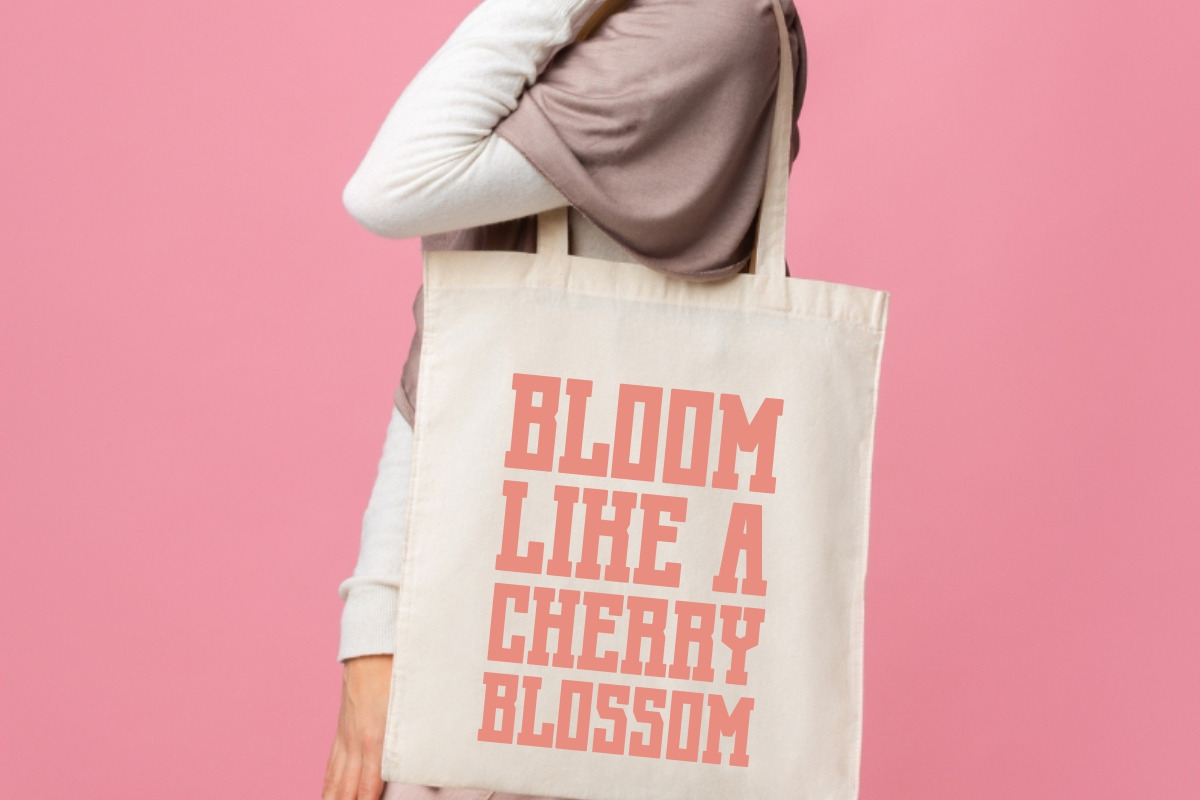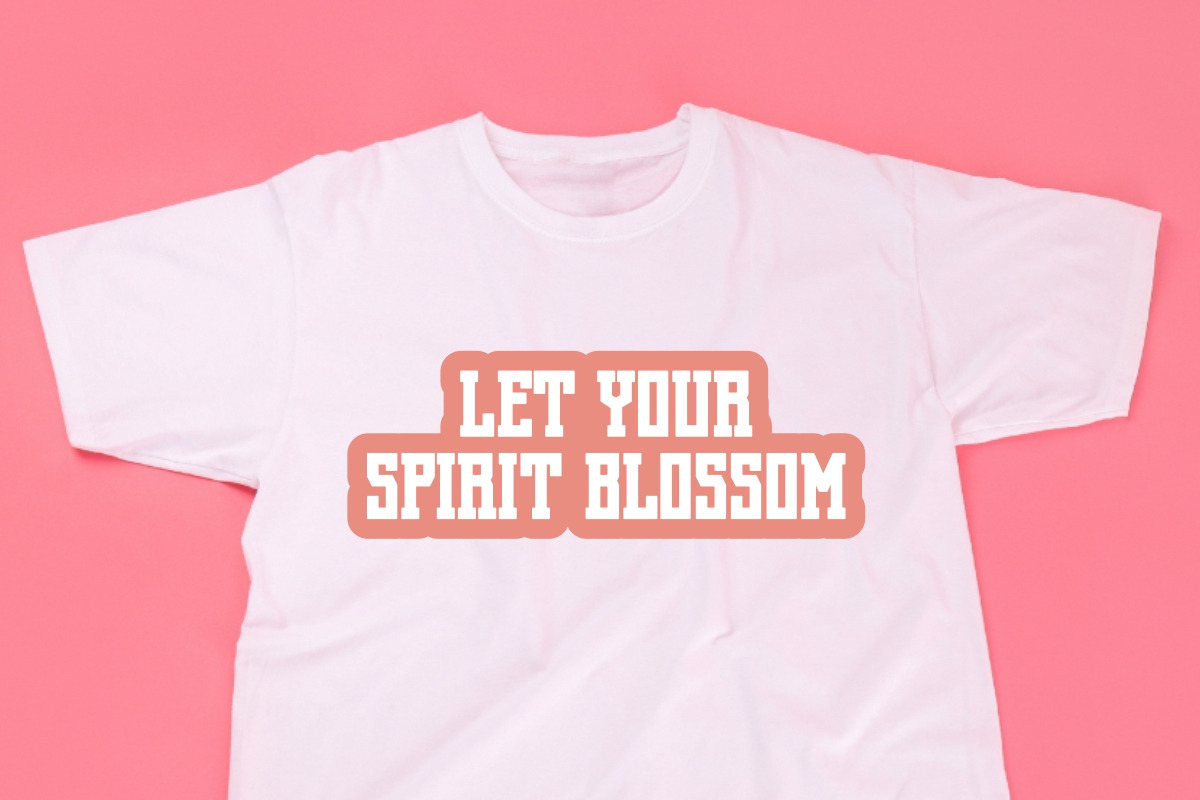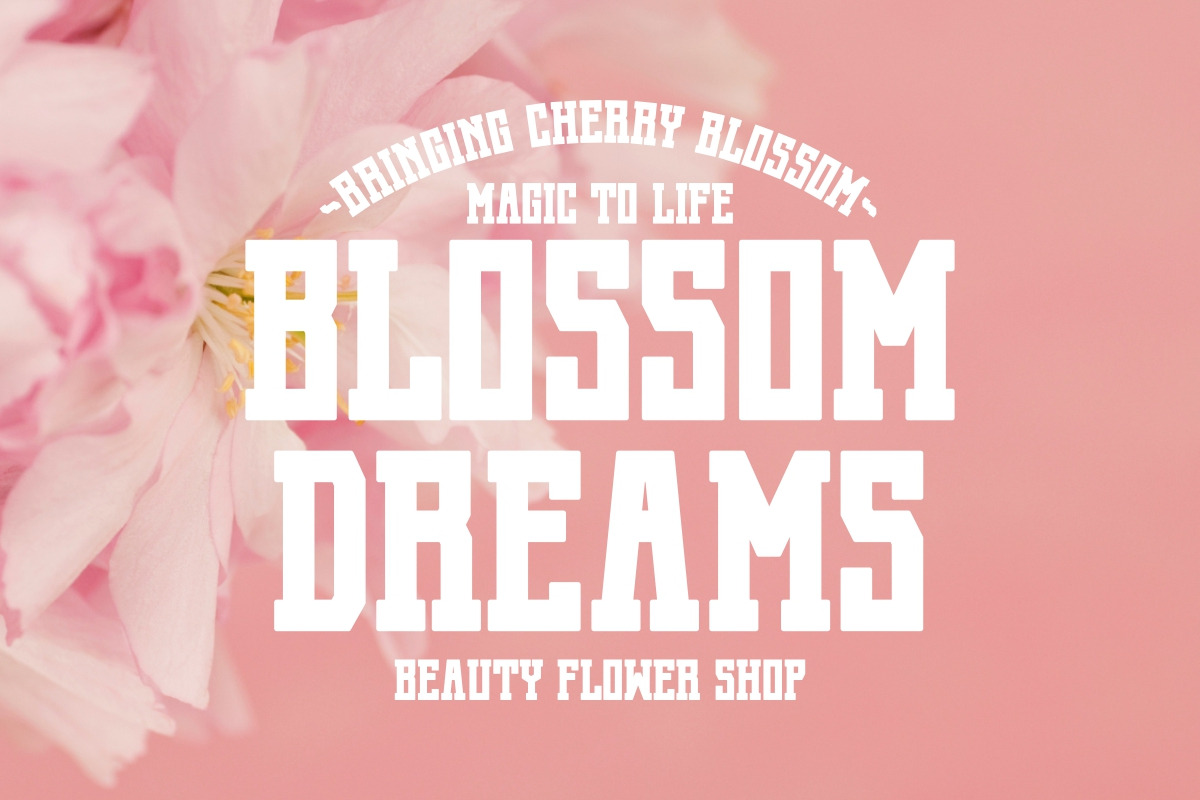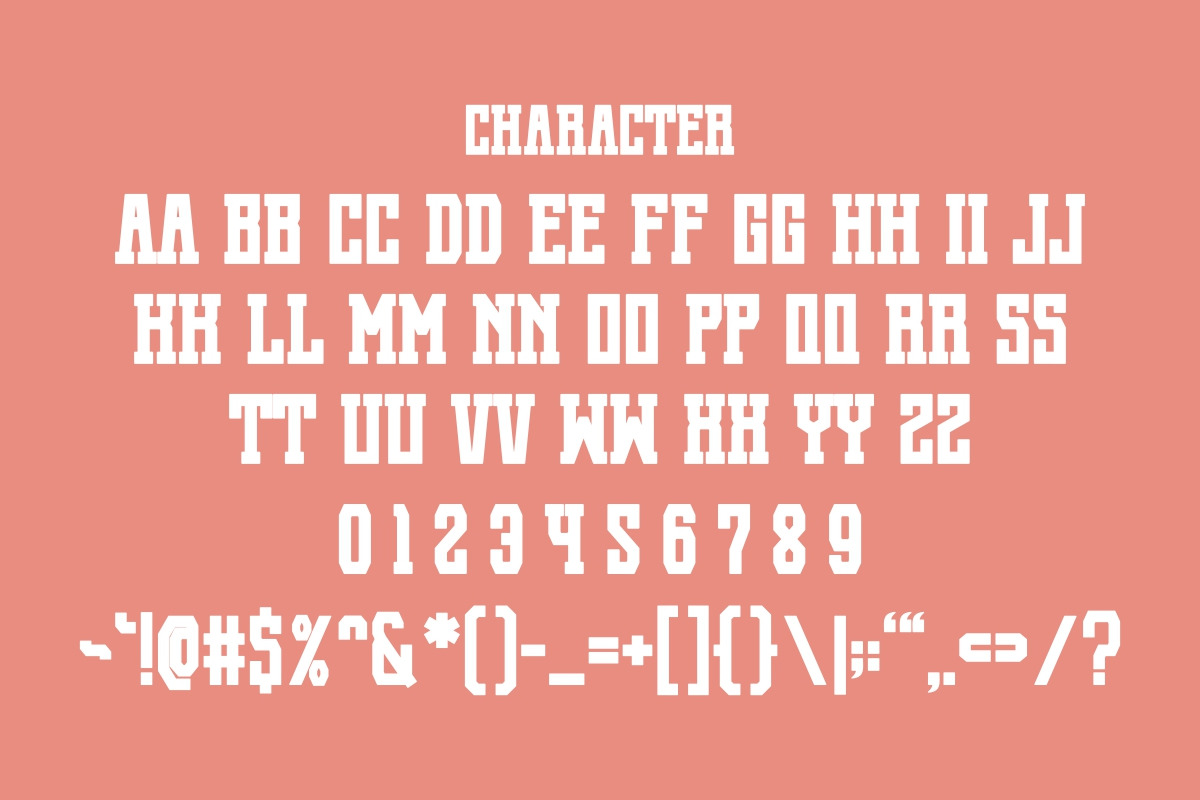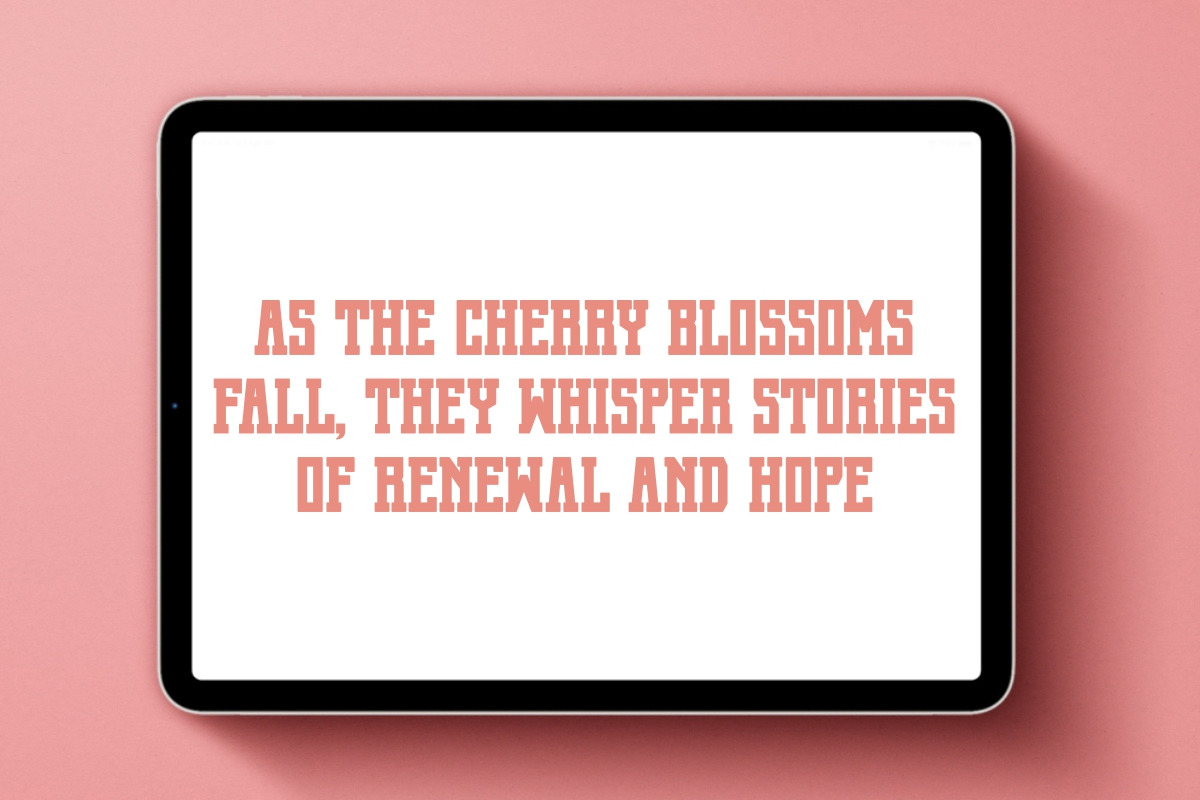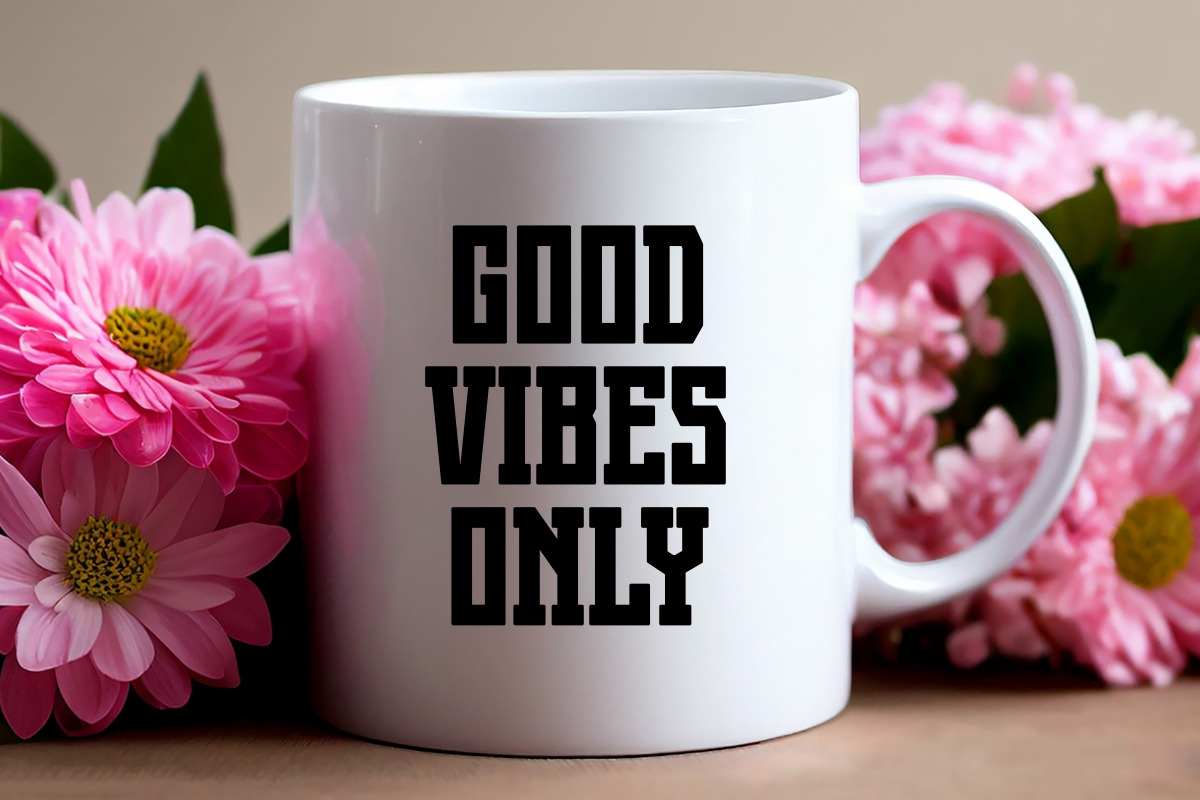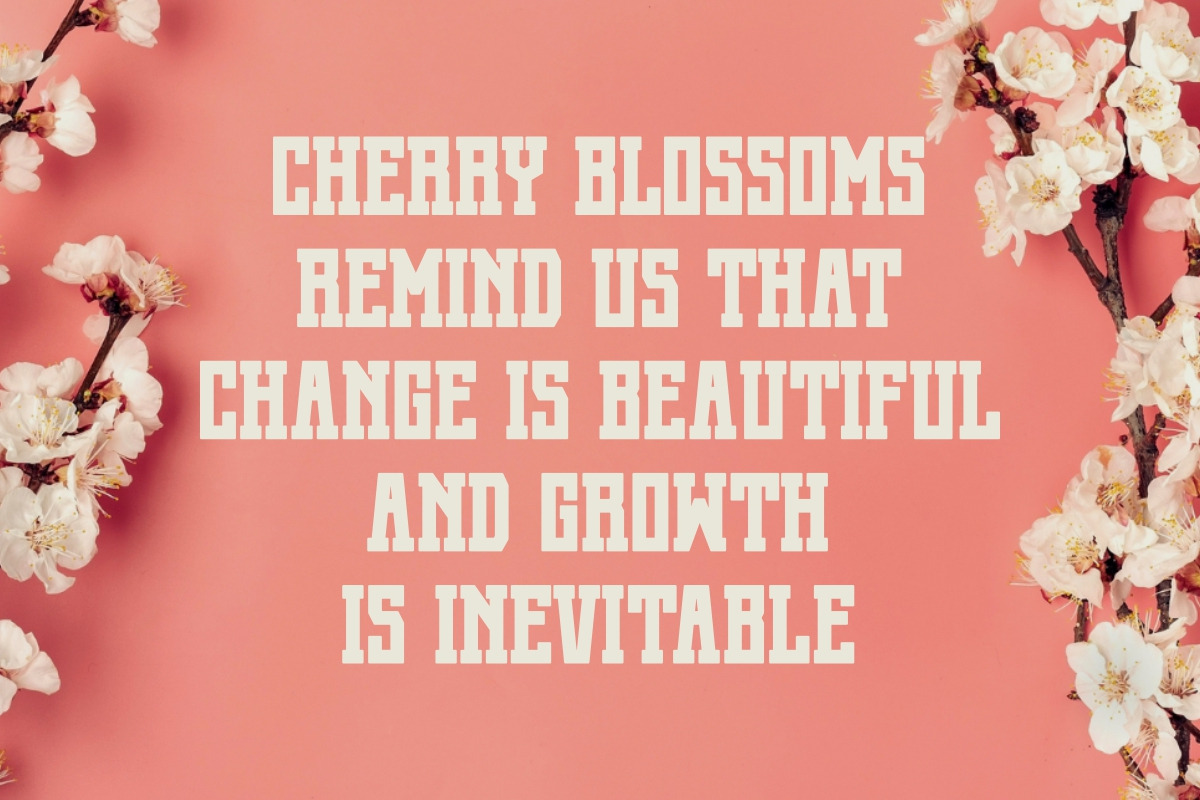
Cherry Blossom - Modern Slab Serif
Cherry Blossom is a bold and modern slab serif font inspired by the delicate beauty of cherry blossoms and the festive spirit of Christmas. Perfect for quotes, posters, branding logos, and apparel mockups like t-shirts. It's also ideal for merchandise, including cherry blossom cup wrap, mugs, and tote bags. This font works well for magazine headlines and social media designs, bringing a fresh and seasonal touch to any project.